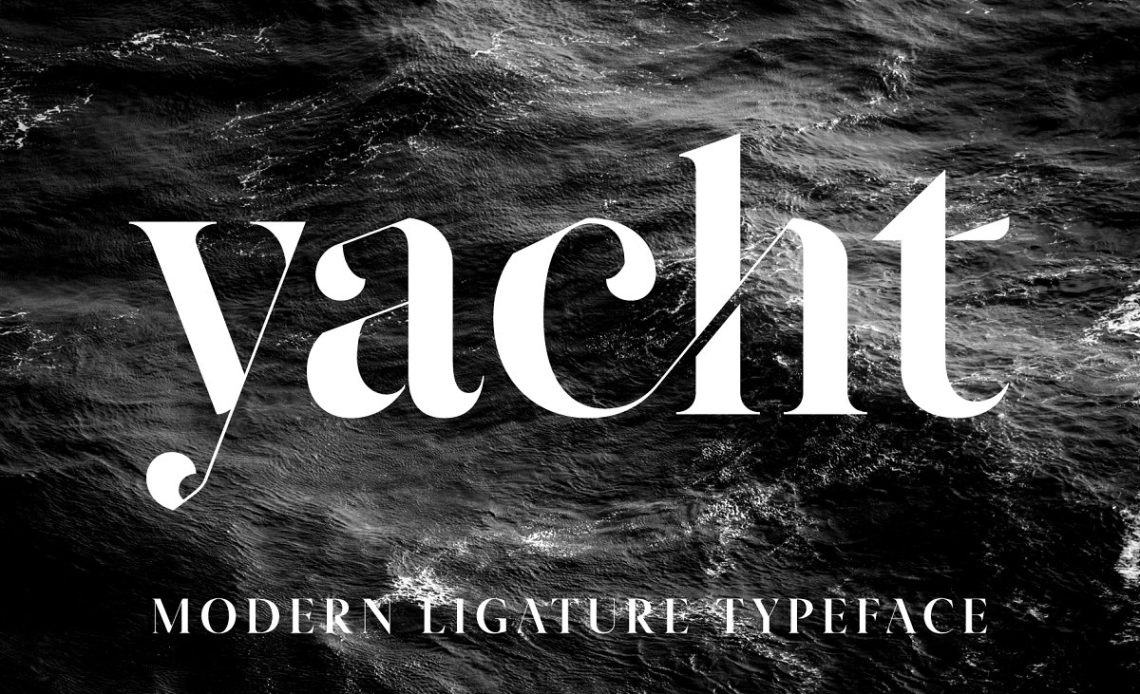
Looking for the best fonts for modern logos? Look no further than Yacht, the modern and elegant serif font created by Genilson Santos. Yacht is more than just a font - it's a powerful tool that can elevate your design game to the next level.
With a variety of discretionary ligatures, Yacht gives you all you need for great typography. Use it for posters, branding, logotypes, headlines, editorial design, and more. This font family is versatile and can be used in many different contexts.
One of the standout features of Yacht is its Unicode PUA encoding. This means that you'll be able to access all additional characters via the glyph palette from your operating system. This makes it incredibly easy to copy and paste characters into any software you're using.
In addition to the standard ligatures, Yacht also comes with discretionary ligatures to give your designs a unique touch. And if you need to use Yacht in multiple languages, you're in luck - it comes with multi-lingual support.
Overall, Yacht is a must-have font for anyone looking to create modern and elegant designs. With its powerful features and elegant style, it's sure to be a go-to font for years to come.